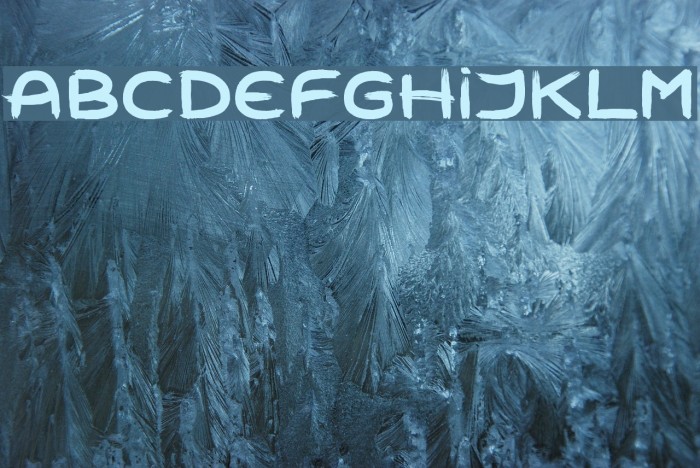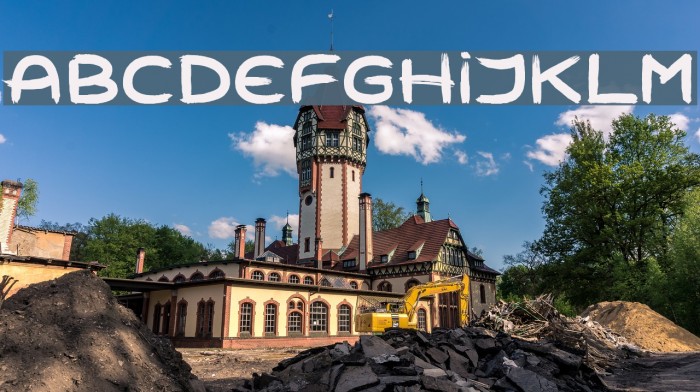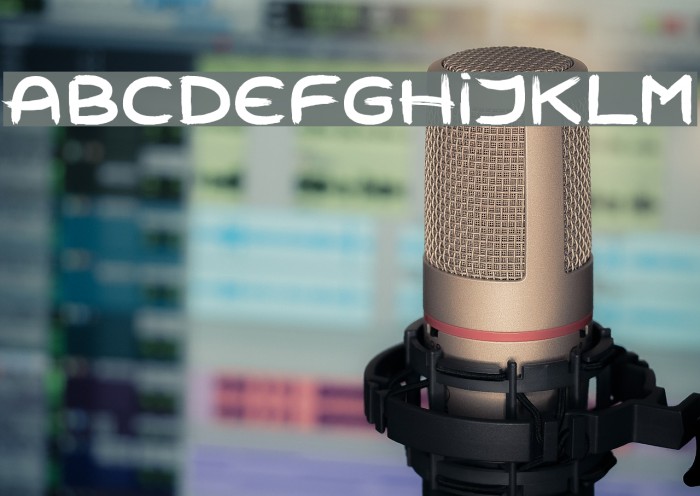
Zombie Morning Font
This font features a bold and edgy design with a distressed, grunge-like appearance. The characters have a rough, hand-drawn quality, giving them a unique and rebellious look. The strokes are uneven, with some parts appearing thicker and others thinner, adding to the chaotic and energetic feel. The uppercase letters are particularly striking, with sharp edges and a slightly irregular baseline that enhances the font's dynamic nature. This style is perfect for projects that require a bold statement or a touch of urban flair.
A bold, distressed font with a grunge-like, hand-drawn appearance.
- Proposed Projects: Ideal for music album covers, event posters, streetwear branding, and edgy graphic designs.